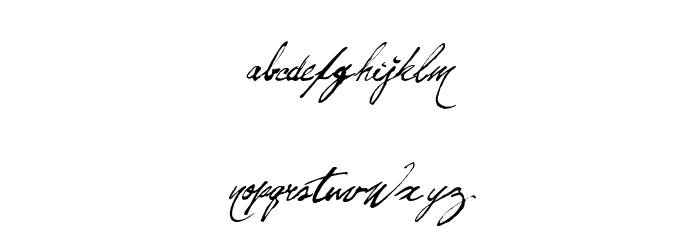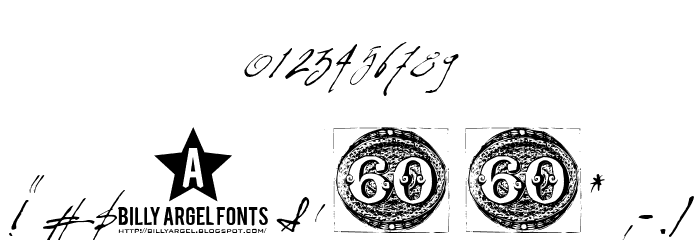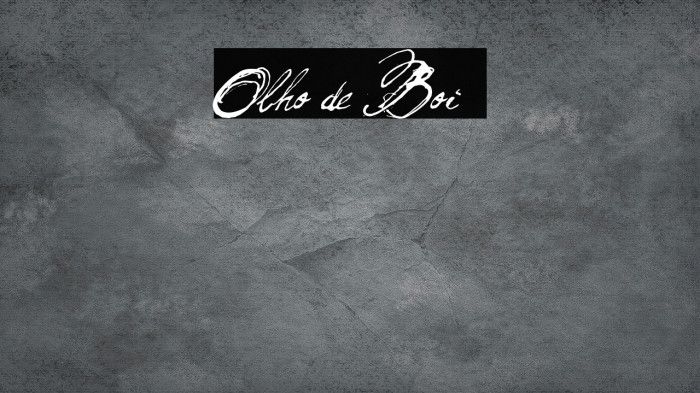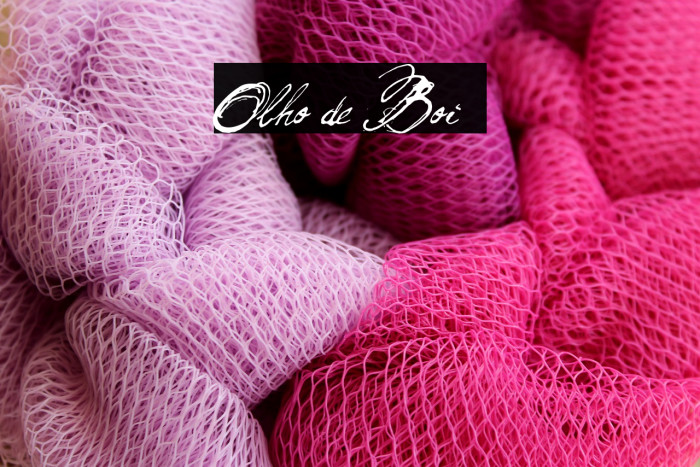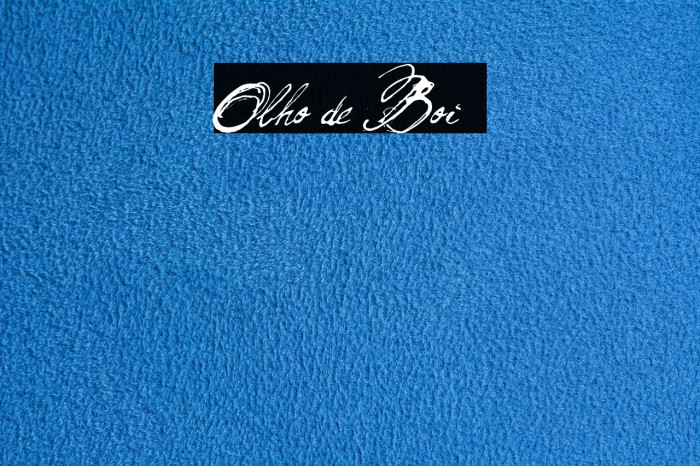
Olho de Boi Font
This font exhibits a highly decorative and intricate script style, characterized by its flowing, cursive letterforms and elaborate flourishes. The uppercase letters are particularly ornate, with exaggerated loops and swirls that give the font a sense of elegance and sophistication. The lowercase letters maintain a consistent style, with a slightly more restrained approach compared to the uppercase, yet still retaining a graceful and fluid appearance. The numerals and special characters are designed to match the overall aesthetic, ensuring a cohesive look across all glyphs. This font is ideal for projects that require a touch of elegance and artistic flair.
An ornate and decorative script font with flowing, cursive letterforms.
- Proposed Projects: Ideal for wedding invitations, luxury branding, artistic posters, and elegant stationery.
- Character Spacing: Tight
- Use Case: Logos, Invitations, Artistic projects